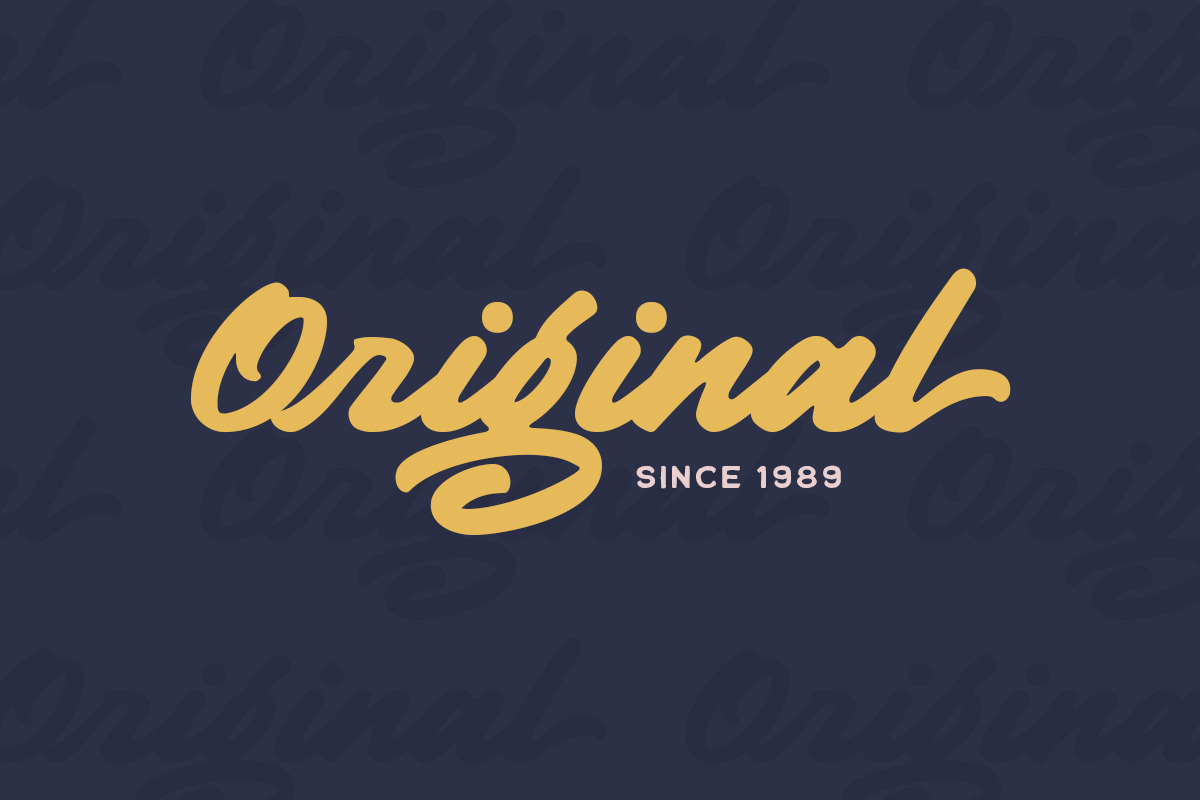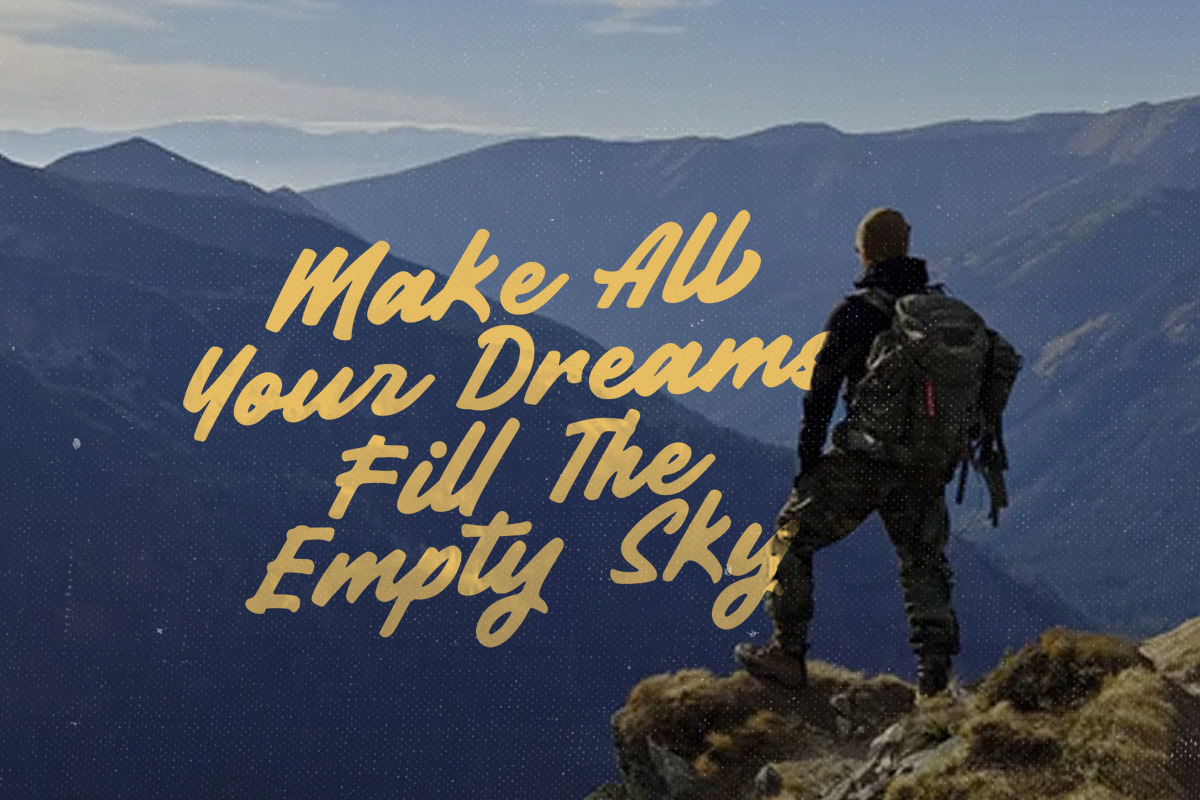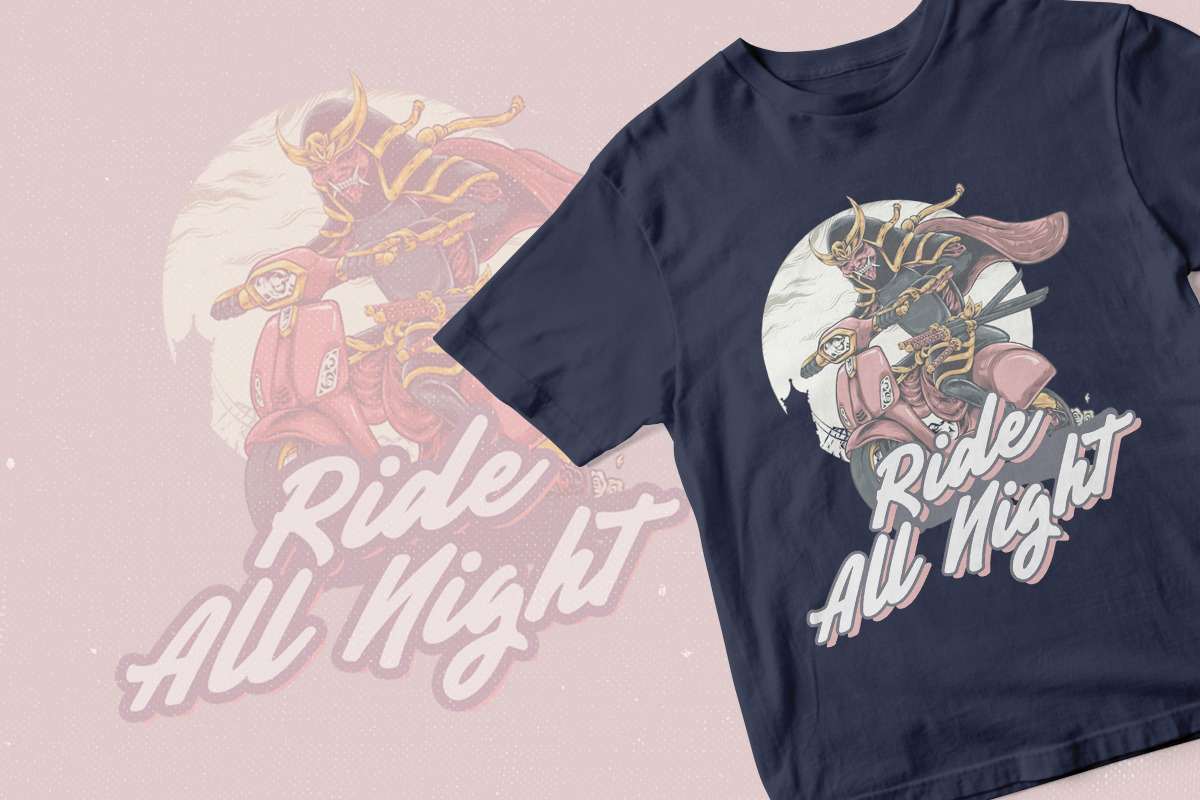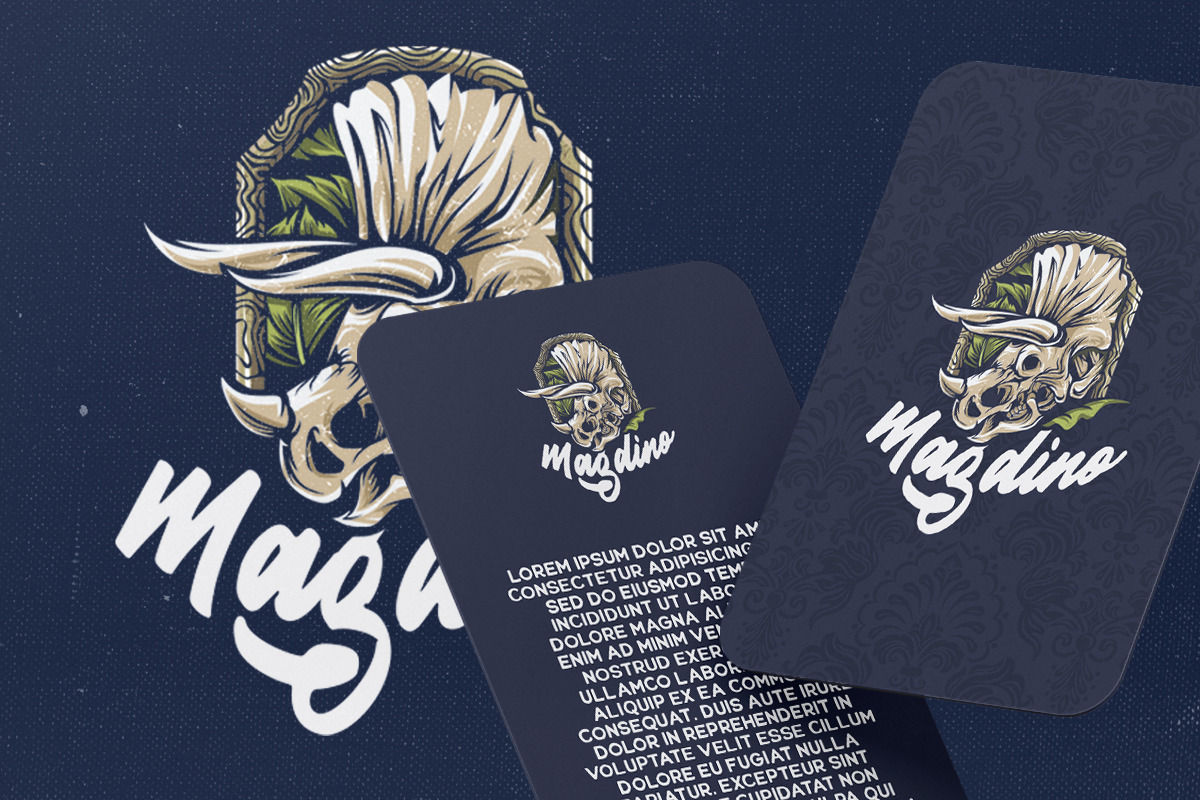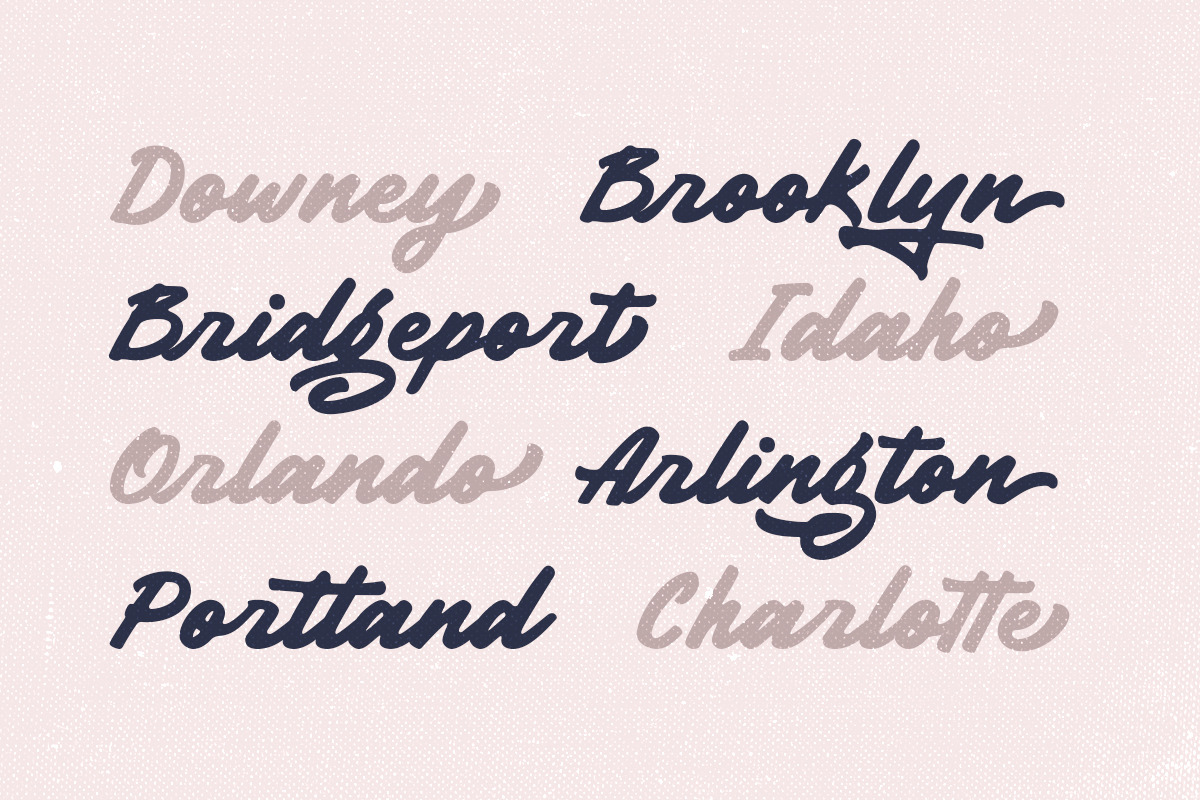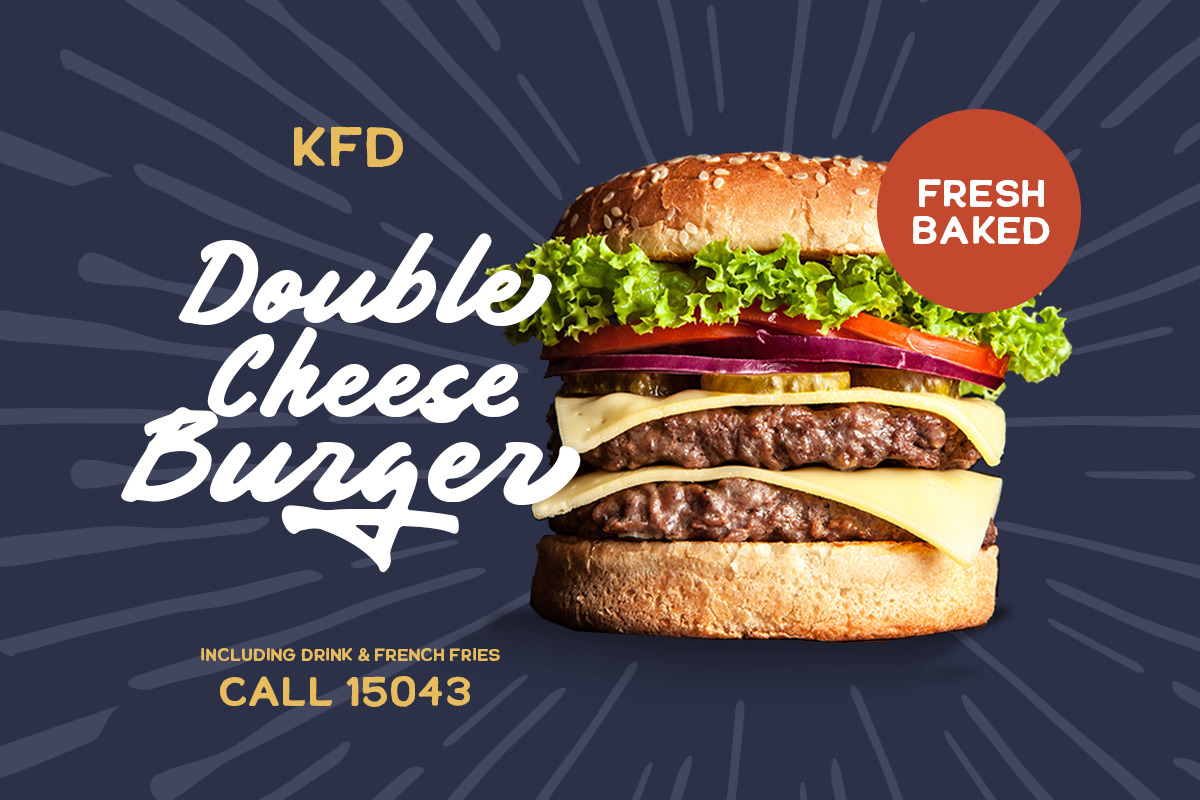
Garnite - Handwritten Script
Introducing, Garnite- Handwritten Script Typeface. The natural hand writing feel make this font makes it stands out. This font perfectly made to be applied especially in logo, and the other various formal forms such as invitations, labels, logos, magazines, books, greeting / wedding cards, packaging, fashion, make up, stationery, novels, labels or any type of advertising purpose.